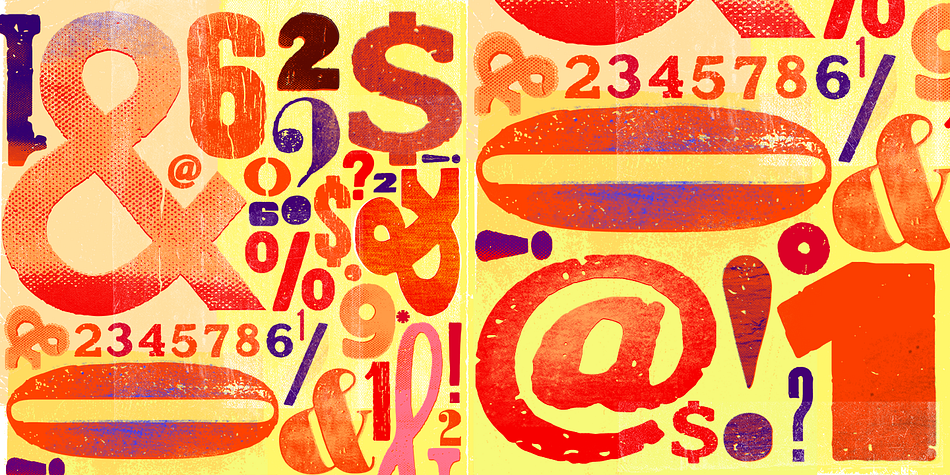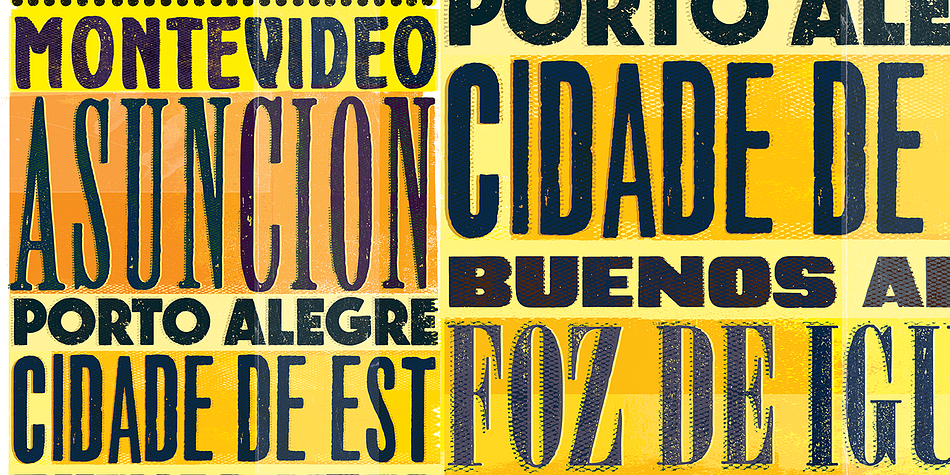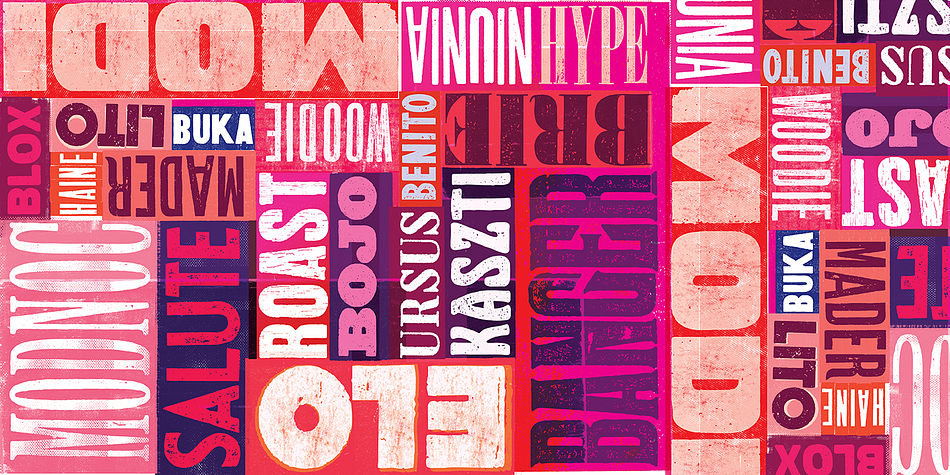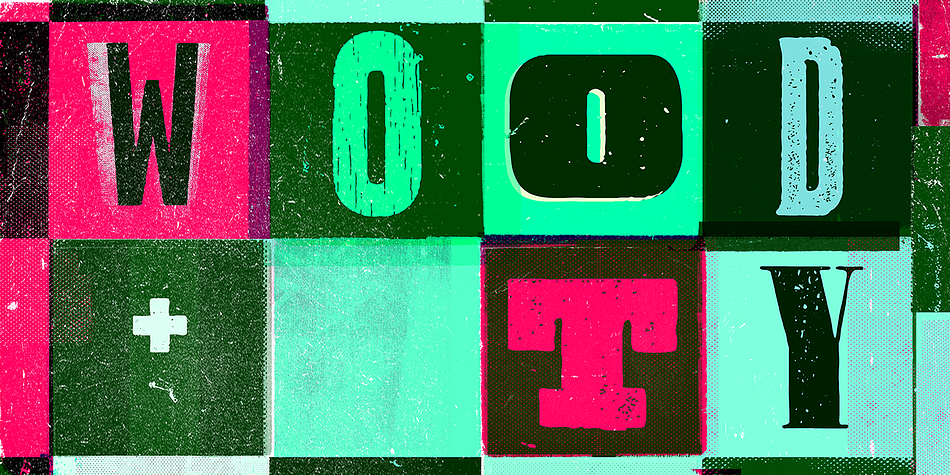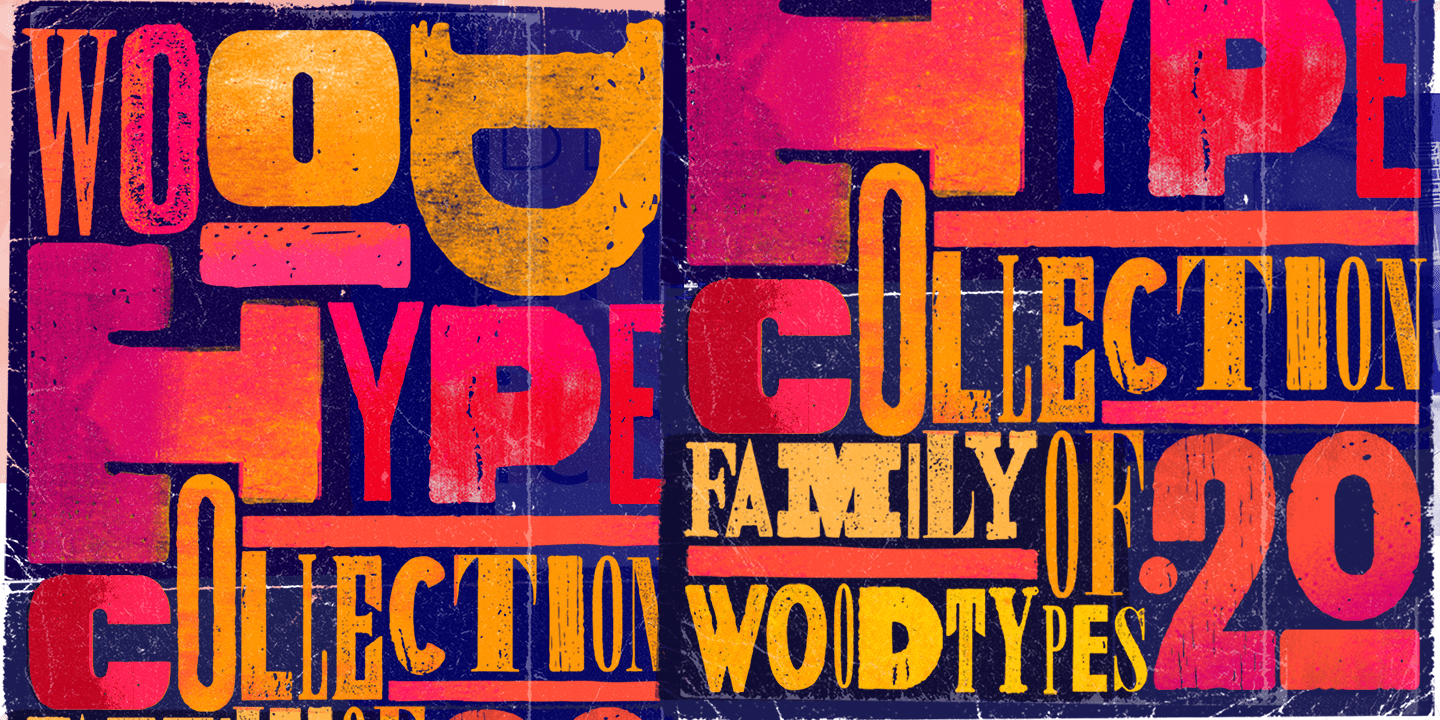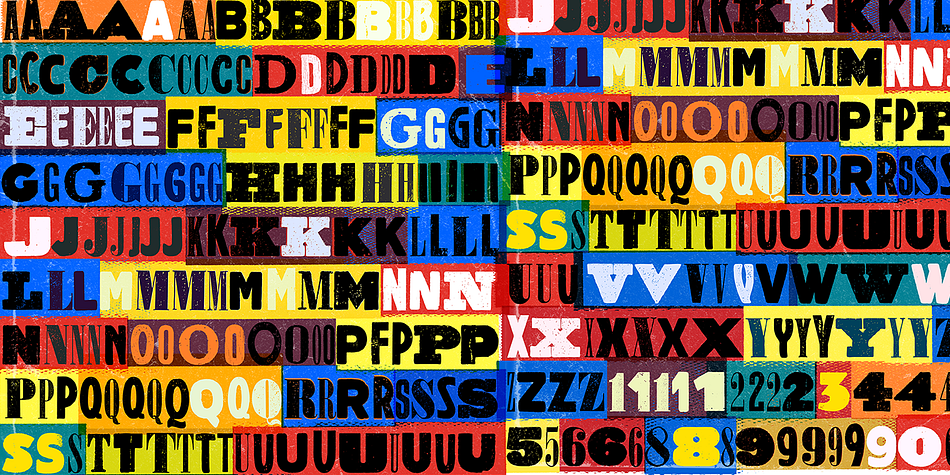
WTC
Designed by Mateusz Machalski, WTC is a multiple classification font family. This typeface has nineteen styles and was published by MACHALSKI.
WTC (WOOD TYPE COLLECTION) from Mateusz Machalski is a set of wonderful, warm, and weathered hand made typefaces. The Inspiration for this collection comes from a wooden letter blocks and other old technologies used for printing. WTC supports 40 different languages and contains over 300 glyphs per style. The Family consists of 20 typefaces. ENJOY!